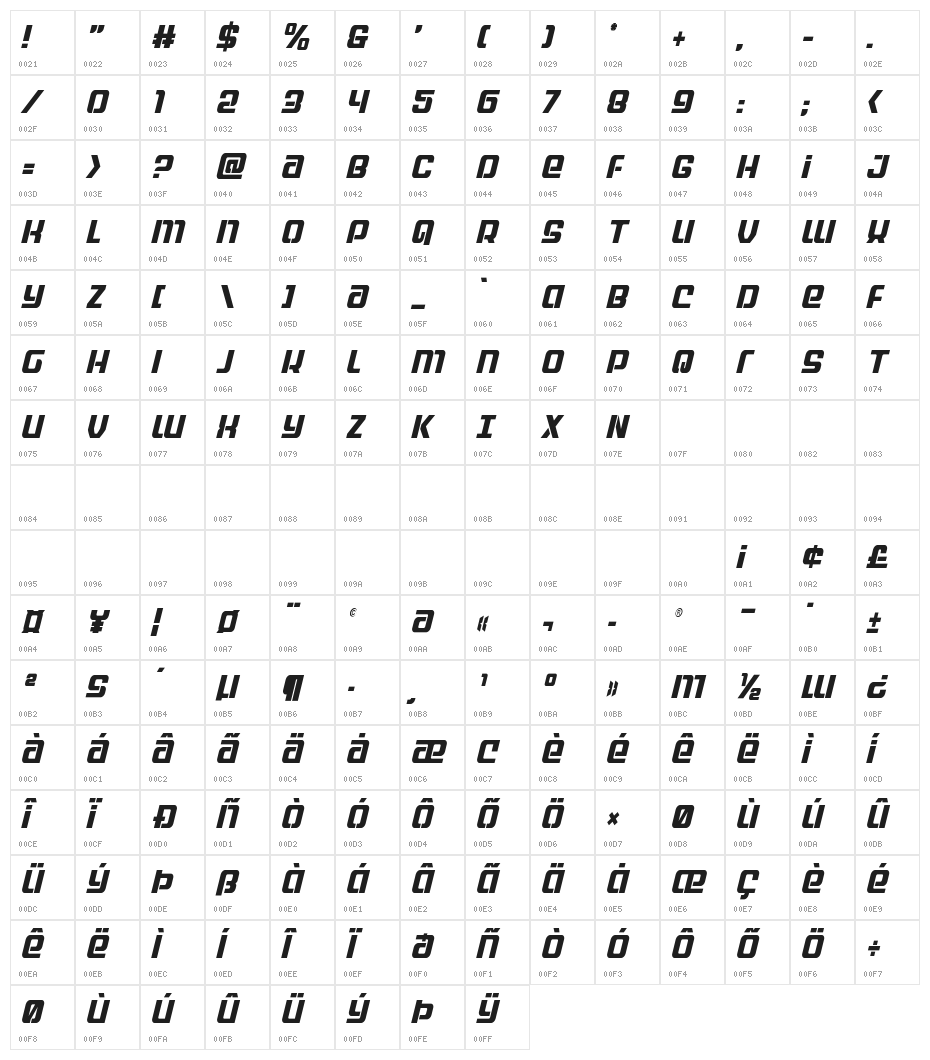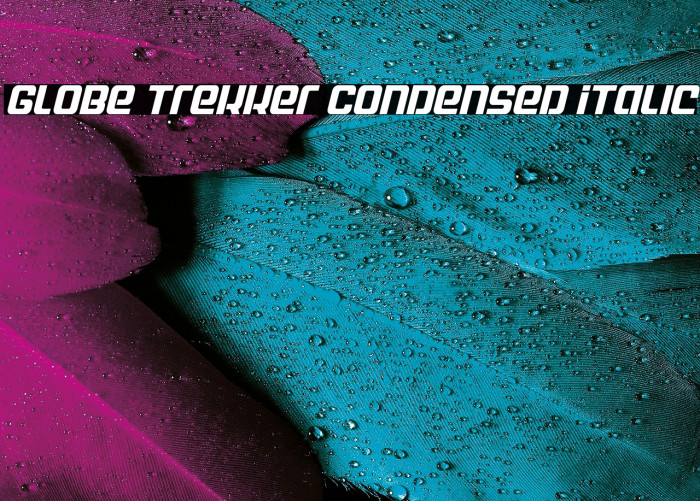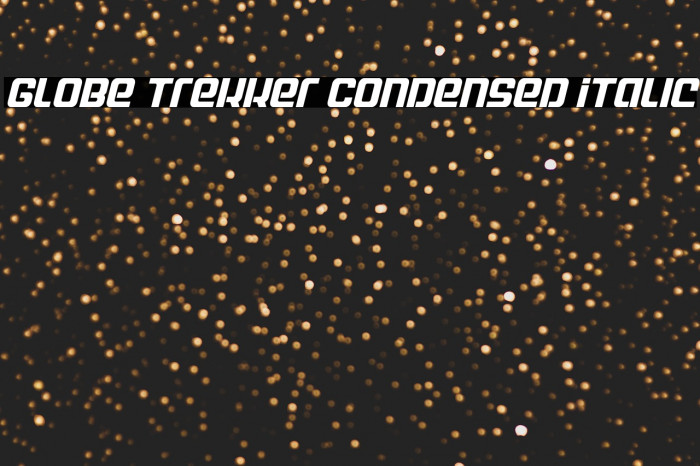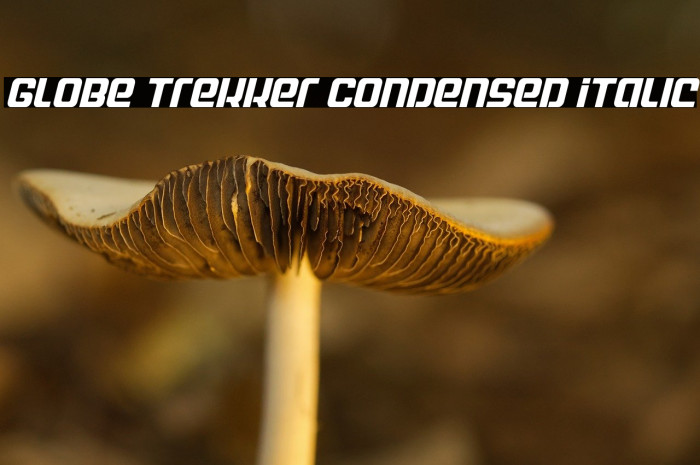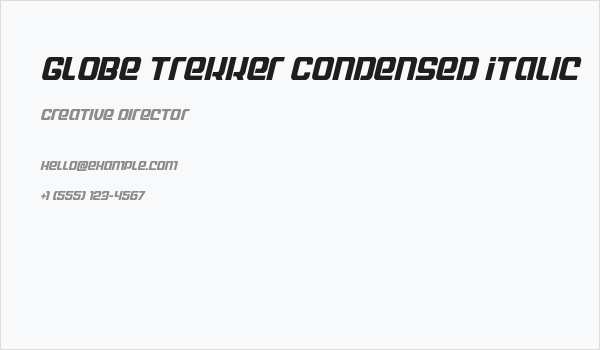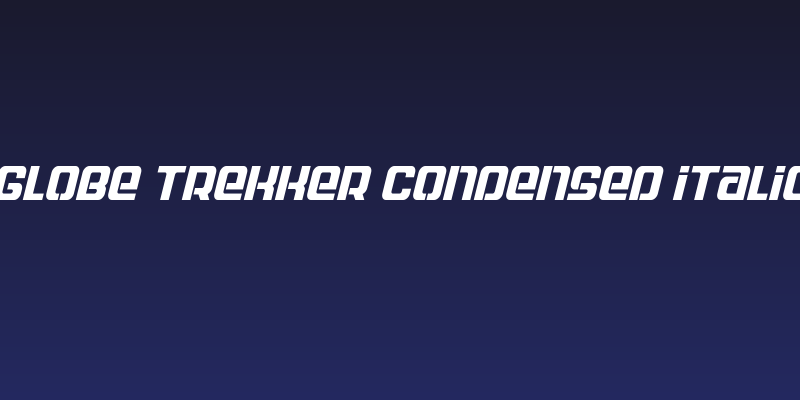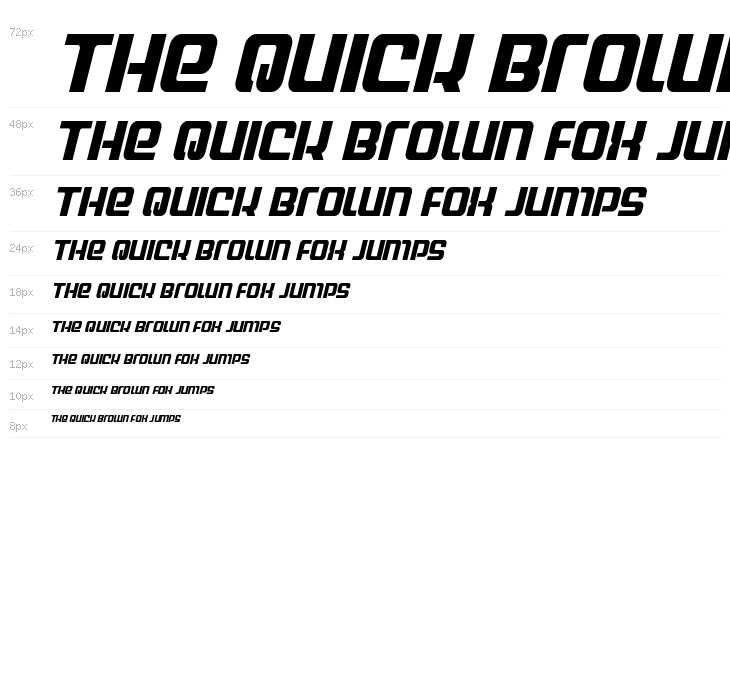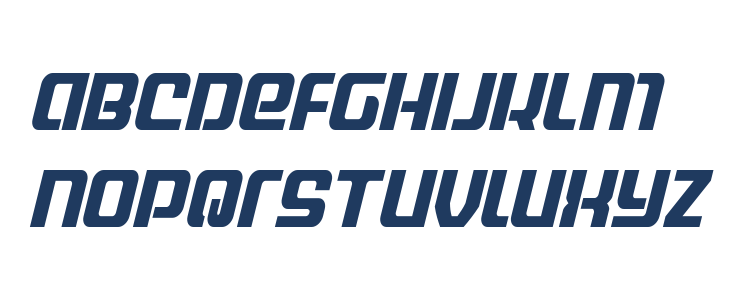
Globe Trekker Condensed Italic Font
Globe Trekker Condensed Italic Description
This font features a bold, italicized style with a condensed width, giving it a dynamic and modern appearance. The characters are designed with a forward-leaning slant, enhancing the sense of movement and speed. The strokes are thick and consistent, providing a strong visual impact. The uppercase and lowercase letters maintain a uniform height, contributing to a cohesive look. The numbers and special characters are crafted to match the overall style, ensuring versatility in various design contexts. This font is ideal for projects that require a contemporary and energetic feel.